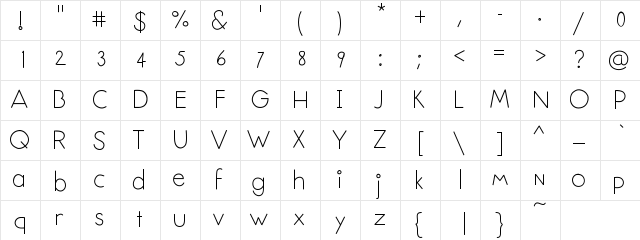
Senseless Medium Free Font
Senseless Medium
Design Context for Senseless
Senseless is a composed and adaptable typeface that performs quietly and consistently across a wide range of design contexts.
Pro Tip: Use Senseless in both headline and body roles to test its range before committing to a single application.